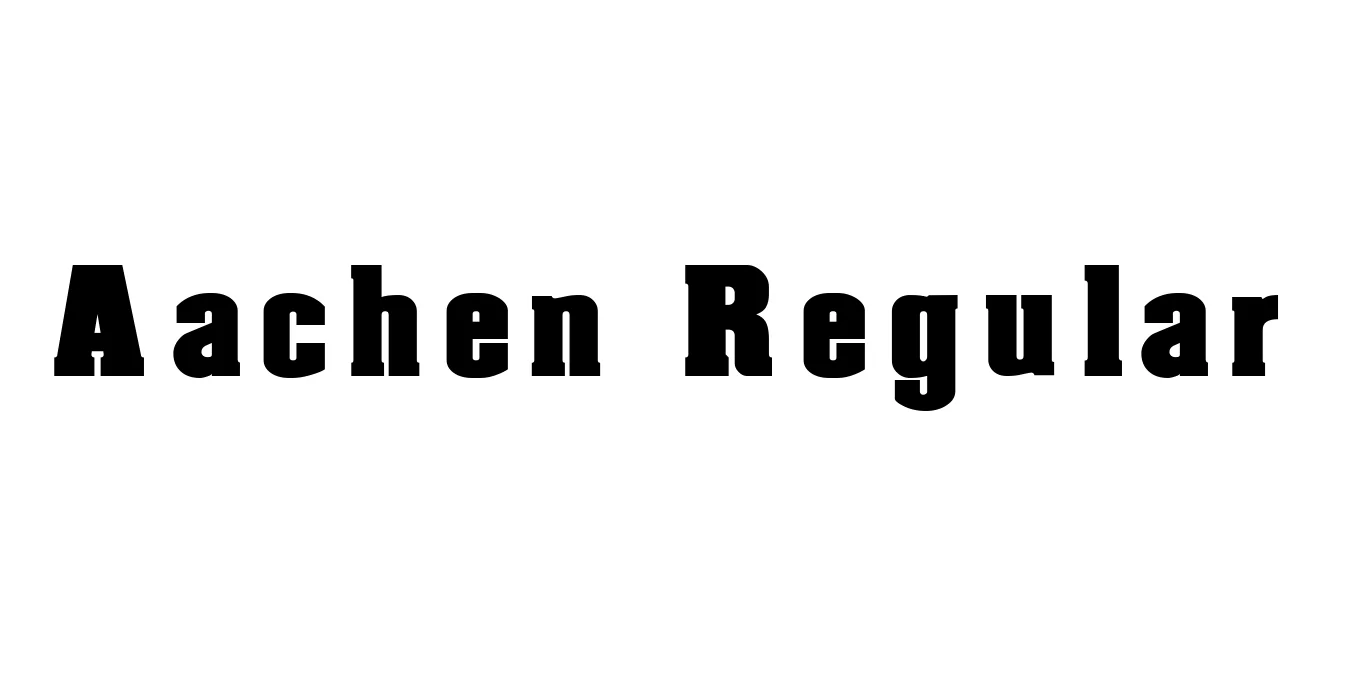
Aachen Regular
Designed by Colin Brignall and Alan Meeks
| Category | Slab Serif |
| Designer | Colin Brignall and Alan Meeks |
| Similar Fonts | Rockwell, Stymie, Memphis, City, Serifa |
Aachen Regular is a powerhouse slab serif typeface originally designed by Colin Brignall in 1969 for Letraset. Known for its heavy, block-like serifs and robust character shapes, it was created during a period where bold, high-impact display faces were in high demand for advertising. The design is characterized by its short ascenders and descenders, which allow for very tight leading and massive, commanding headlines that demand the reader's attention.
In the late 1970s, the typeface was further expanded by Alan Meeks, adding additional weights to the family to increase its versatility. Today, Aachen remains one of the most recognizable slab serifs in the world, frequently associated with strength, durability, and a classic masculine aesthetic. It has transitioned from dry-transfer lettering to a digital staple used by designers globally for everything from professional sports branding to industrial packaging.
Aachen Regular Best Uses
Perfect for collegiate-style logos, jersey numbers, and athletic marketing materials.
Ideal for high-impact, short titles in magazines and newspapers that need to convey authority.
Works exceptionally well for physical signage and billboards due to its high visibility and thick strokes.
Lends a rugged and durable feel to tool brands, outdoor gear, and heavy-duty product packaging.